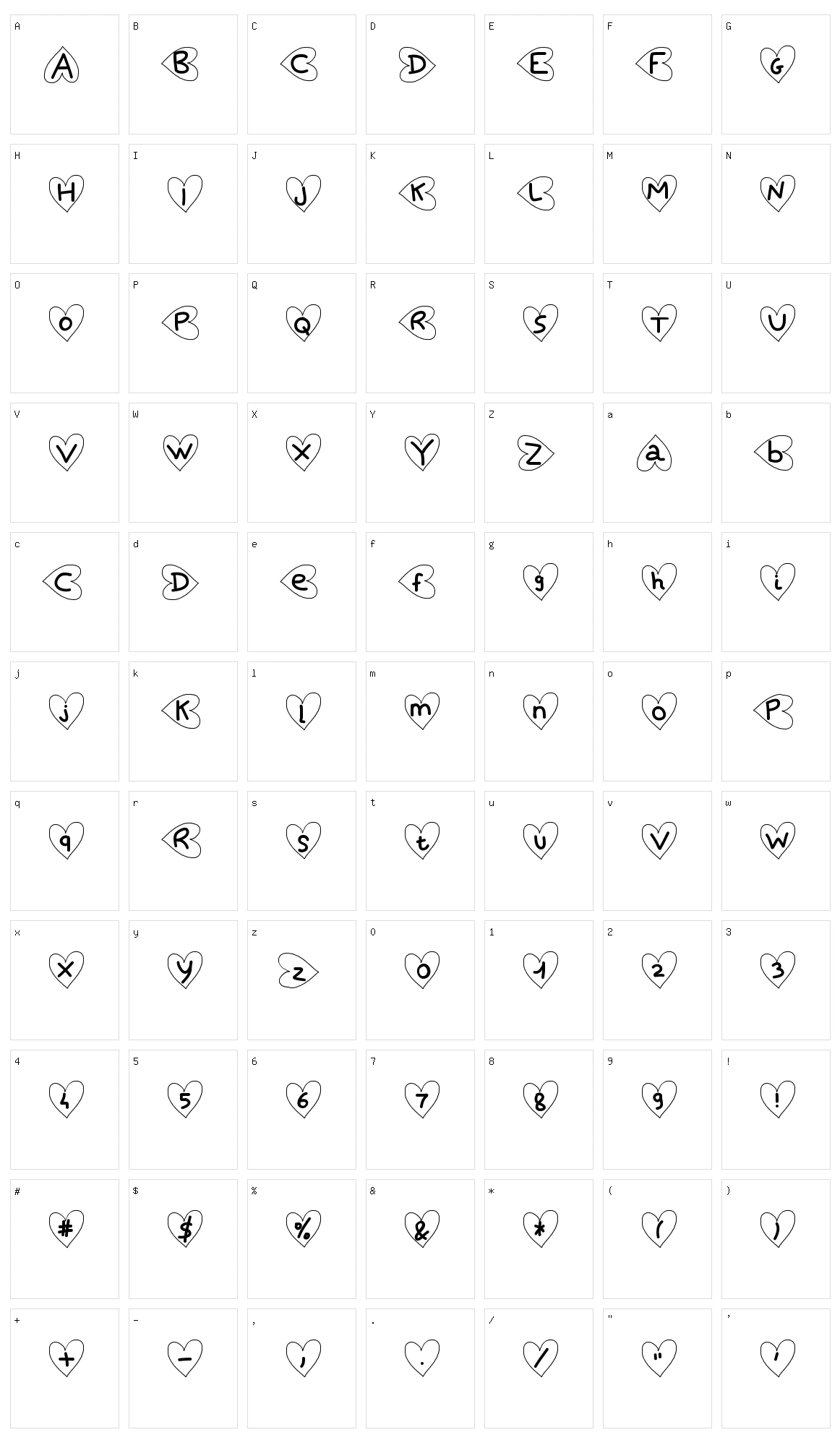
The free font Saint Valentin is carefully designed by Gaelleing, showcasing a thoughtful balance of creativity and usability and falls under the Valentine font style. When you download the ZIP file, it contains only 14.24 KB of font files, making it lightweight and quick to download. Please review the license details below to understand permitted usage and distribution rights. If license information is not available, we recommend using this font for personal projects only or contacting the author directly for commercial usage permissions.